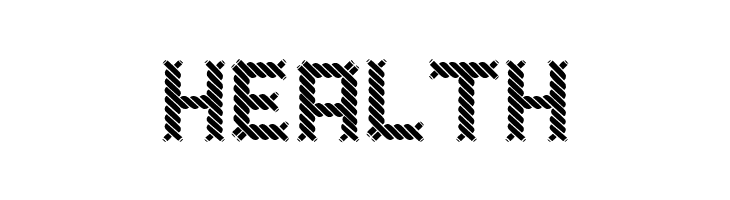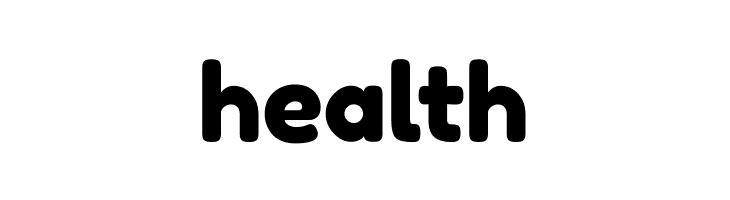
( Fonts by Kurnia Setyadi )
A playful, bold font with thick, rounded strokes and a whimsical touch.
( Fonts by Prioritype )
A playful and whimsical font with bold, rounded letterforms.
A playful handwritten font with flowing, connected letters.
( Fonts by Sekar Asri Andamari )
A playful, polka-dotted decorative font with bold, rounded characters.
( Fonts by Jonathan S. Harris )
A playful and quirky font with bold strokes and unique curves.
( Fonts by Jonathan S. Harris )
Hand-drawn, grunge-style social media icon set with sketchy circular backgrounds.
( Fonts by Jonathan S. Harris )
Hand-drawn, bold brush-style shapes and comic elements.
( Fonts by Hardi Nugraha Tunggele )
A bold, decorative font with high contrast and intricate detailing.
( Fonts by Fahmi )
An ornate and decorative font with intricate swirls and curls.
( Fonts by Jonathan S. Harris )
A bold, jagged font with a rugged, hand-cut appearance.
( Fonts by Jonathan S. Harris )
A bold, hand-drawn font with a playful, scribbled texture.
( Fonts by Jonathan S. Harris )
A bold, wavy, and playful decorative font with a dynamic texture.
( Fonts by Jonathan S. Harris )
A bold, playful font with a bubbly, organic design.
( Fonts by Almarkhatype )
A bold, distressed font with a rugged, vintage style.
A bold, angular font with a geometric and modern style.
( Fonts by Almarkhatype )
A bold, dynamic font with a slightly condensed and energetic style.
A bold, geometric font with a modern, industrial aesthetic.
( Fonts by Jonathan S. Harris )
A playful, hand-drawn font with bold, textured strokes and a whimsical style.
( Fonts by Jonathan S. Harris )
A bold, playful font with wavy, irregular outlines and a dynamic appearance.
( Fonts by Almarkhatype )
A bold, rounded font with a playful and friendly style.
( Fonts by Kurnia Setyadi )
A playful, rounded font with smooth curves and a friendly vibe.
( Fonts by Kurnia Setyadi )
A playful, rounded font with bold, smooth curves and consistent spacing.
( Fonts by Proffalice Lesttari )
A playful, bold font with thick, rounded characters and a whimsical style.
( Fonts by Proffalice Lesttari )
A playful, handwritten-style font with bold, rounded characters.
A bold, high-contrast serif font with sharp, angular serifs and a modern flair.
A bold, angular font with a geometric and modern design.
A playful, decorative font with floral cutouts and bold, rounded characters.
A bold, handwritten font with dynamic strokes and a modern, artistic flair.
A bold, flowing script font with a lively handwritten style.
A fluid and elegant cursive font with graceful curves and a handwritten feel.
A bold, playful outline font with a cartoonish flair.
The image contains doodle-like characters, not a valid font.
( Fonts by Ardana Creative - Personal-use only. For commercial use please contact owner. )
A sophisticated script font with flowing, interconnected letters and a handwritten charm.
A futuristic, geometric font with a sleek and minimalist design.
A modern geometric sans-serif font with clean lines and balanced proportions.